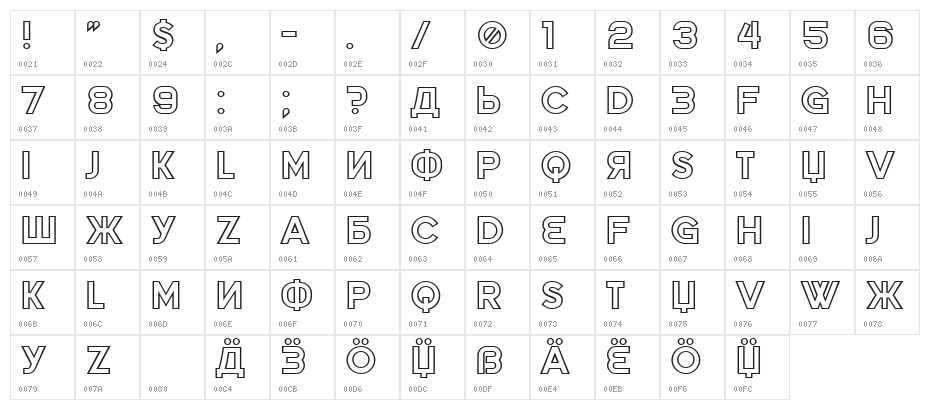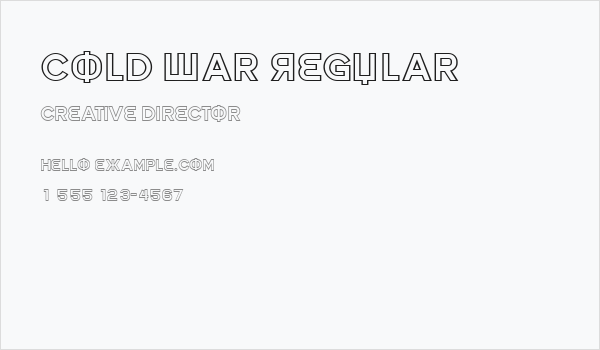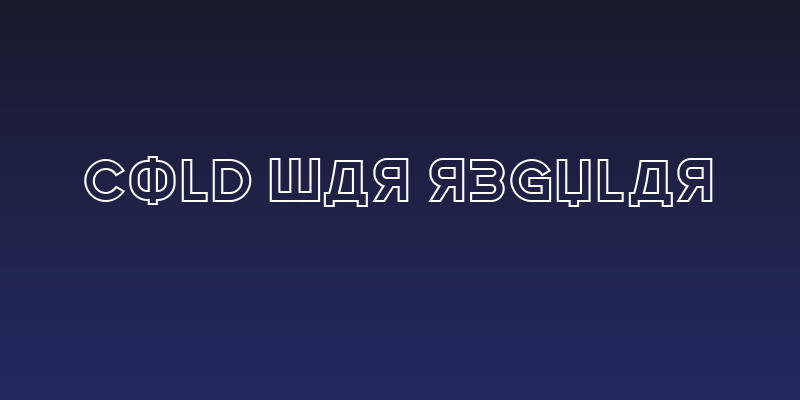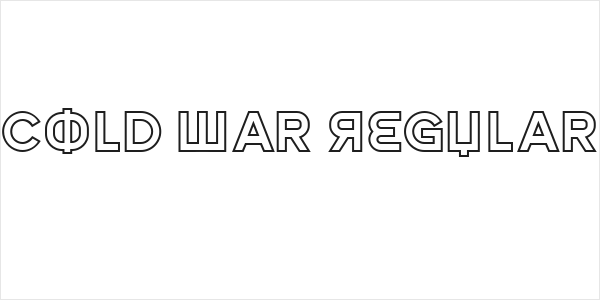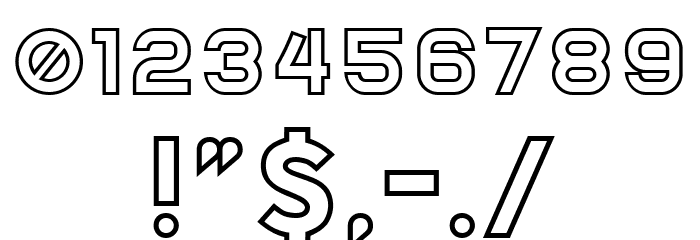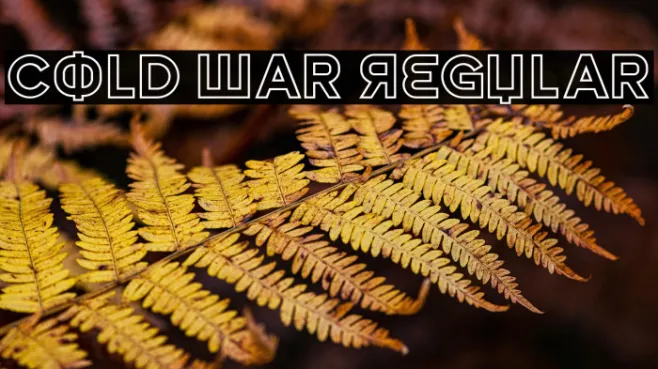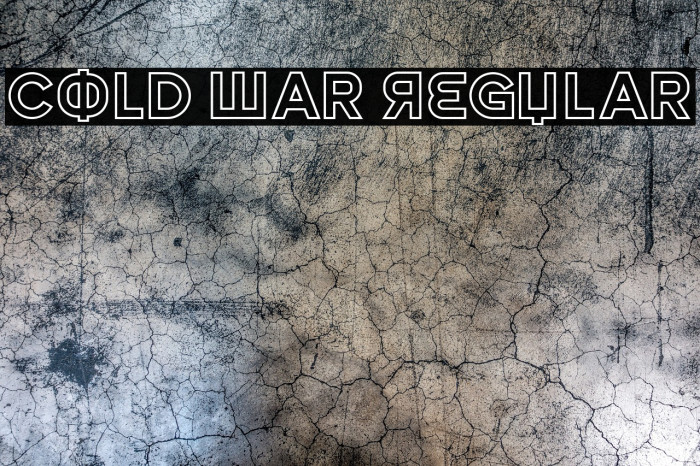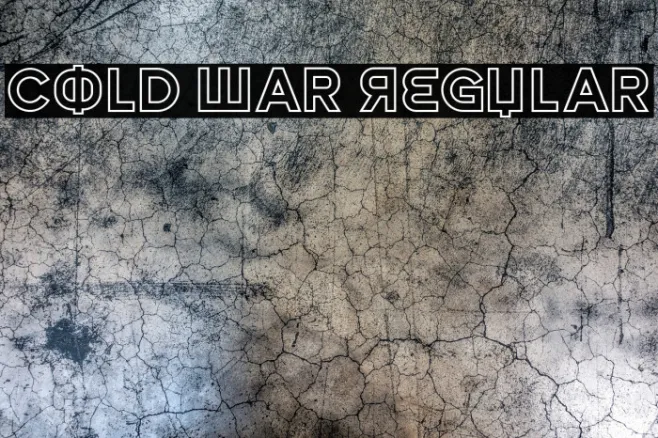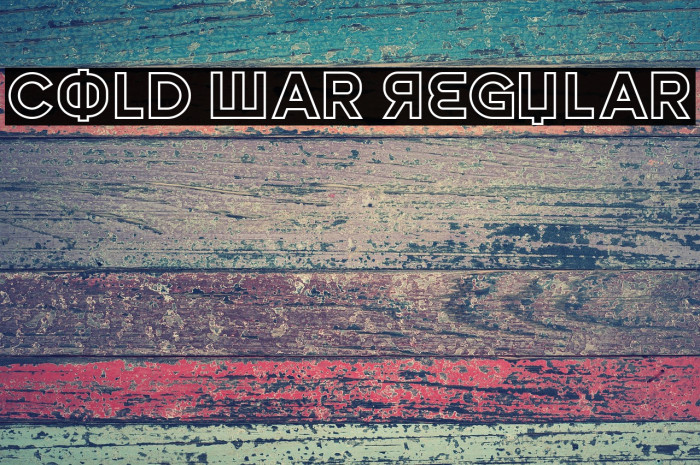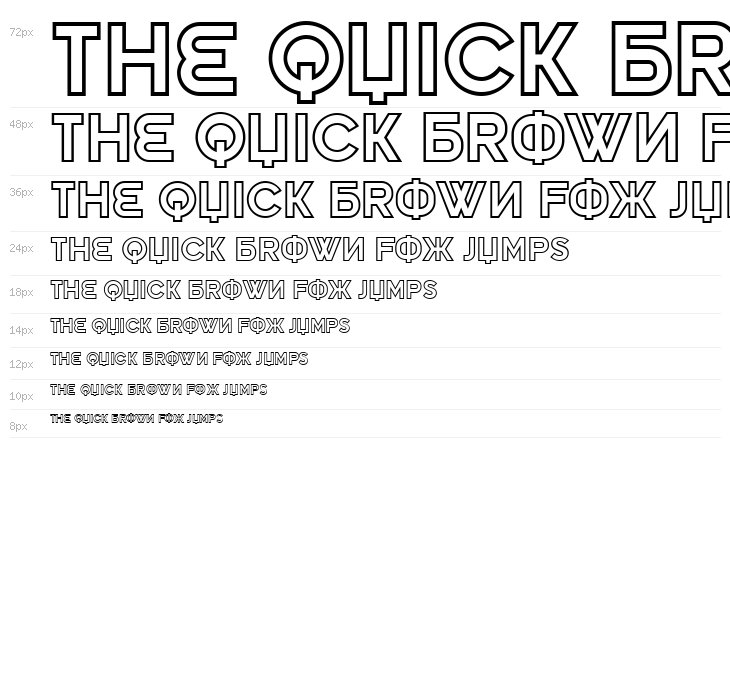
Cold War Regular Font
Cold War Regular Description
This font features a bold, geometric design with a distinct outline style. The characters are uppercase and have a uniform thickness, creating a strong and impactful appearance. The design incorporates elements reminiscent of mid-20th century aesthetics, with a modern twist. The letters are well-spaced, ensuring readability while maintaining a unique visual appeal. The numbers and special characters follow the same stylistic approach, making the font versatile for various applications. Its bold outlines and structured form make it suitable for attention-grabbing designs.
| Proposed Projects | Ideal for posters, headlines, branding, and retro-themed designs. |